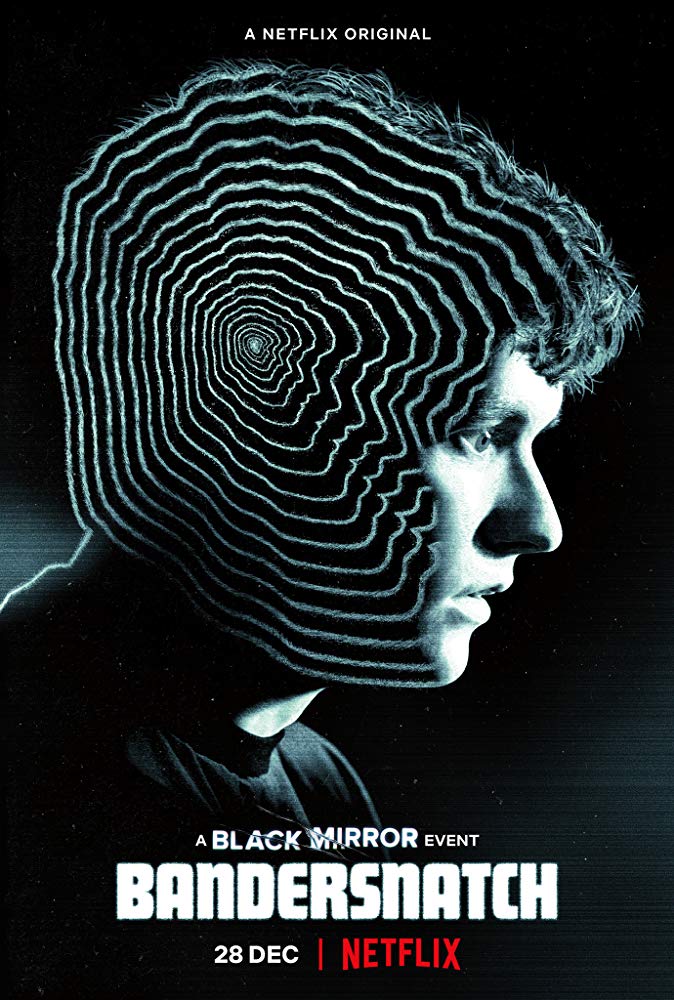
Bandersnatch Font
Fonts in UseBlack Mirror: Bandersnatch is an interactive film from the Black Mirror series that follows a young programmer's descent into madness as he creates a video game with multiple choices and consequences, blurring the lines between reality and fiction.
The film title "Bandersnatch" features a font that resembles the Futura Display typeface, designed by Paul Renner in 1932. More details about the font are available here.